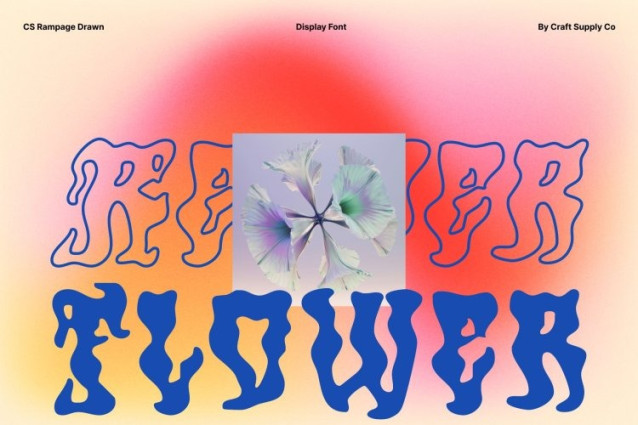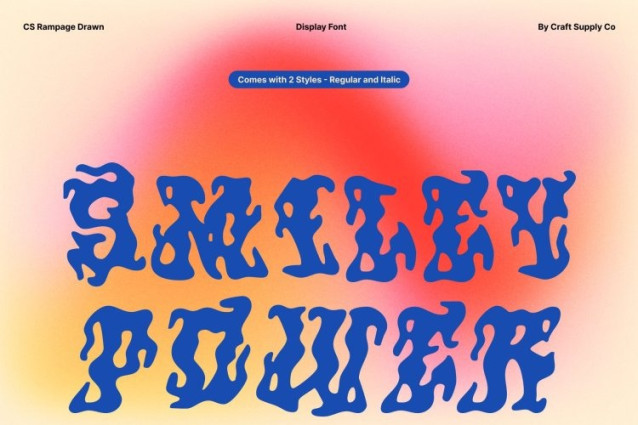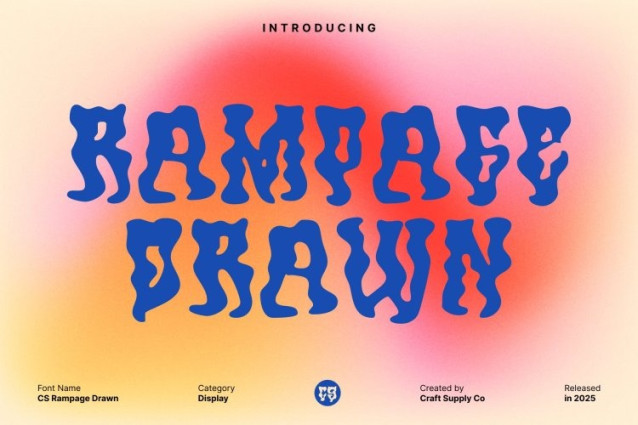
CS Rampage Drawn Font
CS Rampage Drawn Font This is a psychedelic display font designed to explode with movement, rhythm, and imagination. Built with dynamic funky lines and boldly curved, experimental shapes, this typeface instantly commands attention. Its unconventional forms create a sense of motion and visual excitement, making every word feel alive and energetic.
Playful Visual Rhythm with Strong Personality
This font thrives on personality. Each letterform carries a unique flow that feels spontaneous and organic, creating a lively visual rhythm across headlines and titles. This font embraces imperfection and creativity, resulting in a design that feels fun, rebellious, and full of imagination. It’s a font that doesn’t follow rules it creates its own visual language.
Drawn Texture for Artistic and Handmade Feel
The drawn texture is a key element that enhances the font’s artistic soul. This handcrafted detail adds warmth, depth, and a human touch, making the type feel expressive rather than mechanical. The drawn effect brings subtle roughness and natural variation, amplifying the playful and vibrant character while keeping the design visually engaging and emotionally expressive.
Perfect for Music, Posters, and Creative Branding
This font ideal for music branding, concert posters, album artwork, creative campaigns, festival visuals, and bold editorial designs. It captures energy, fun, and imagination, making it perfect for projects that aim to feel experimental, youthful, and unforgettable.